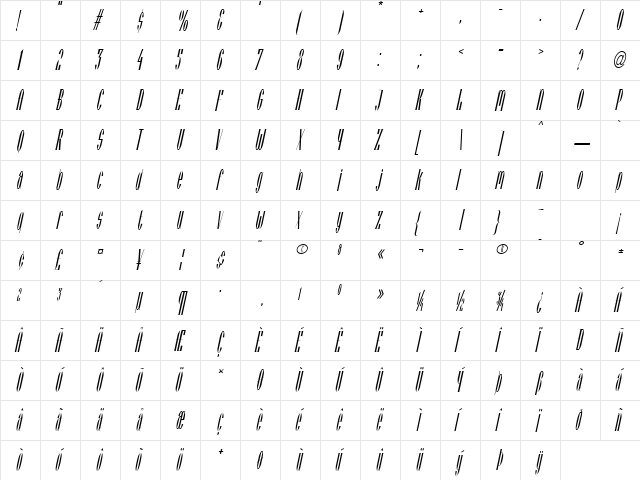
VieneseCondensed Italic Font Preview
Design Context for VieneseCondensed Typeface
VieneseCondensed takes a measured approach to typography — its balanced proportions and neutral character make it a reliable workhorse for both digital and print work. The dynamic lean of this cut emphasises speed and emphasis in any layout. Its narrow stance lets it pack a punch even in space-constrained designs.